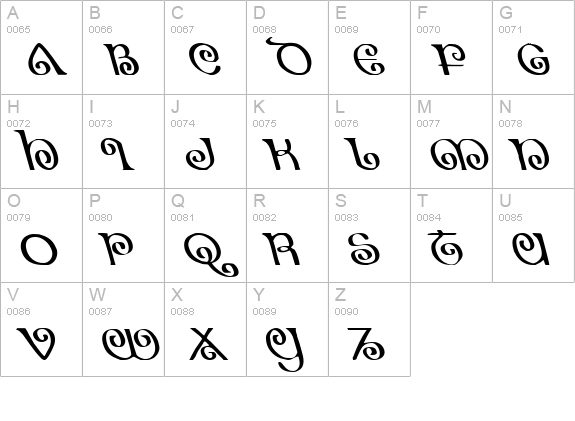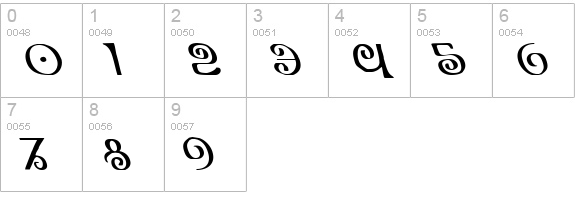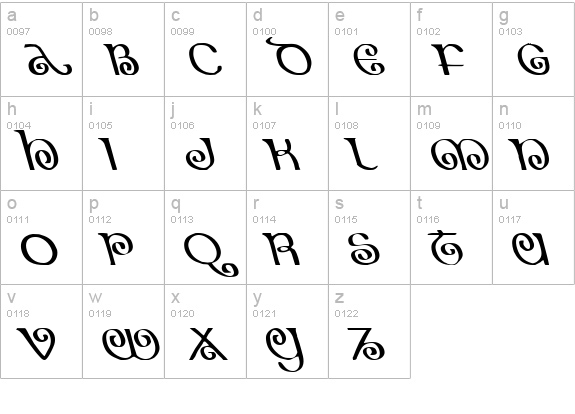
The Shire Leftalic Font Details
The Shire Leftalic font is a whimsical and charming typeface that exudes a sense of warmth and friendliness. With its playful curves and elegant slant, this font captures the essence of a quaint countryside village. The Shire Leftalic font is perfect for adding a touch of magic to your design projects, whether it be invitations, greeting cards, or branding materials. Best of all, The Shire Leftalic font is available for free download at FontsMarket.com. Embrace the enchanting beauty of this typeface and bring a touch of rustic charm to your creations today.